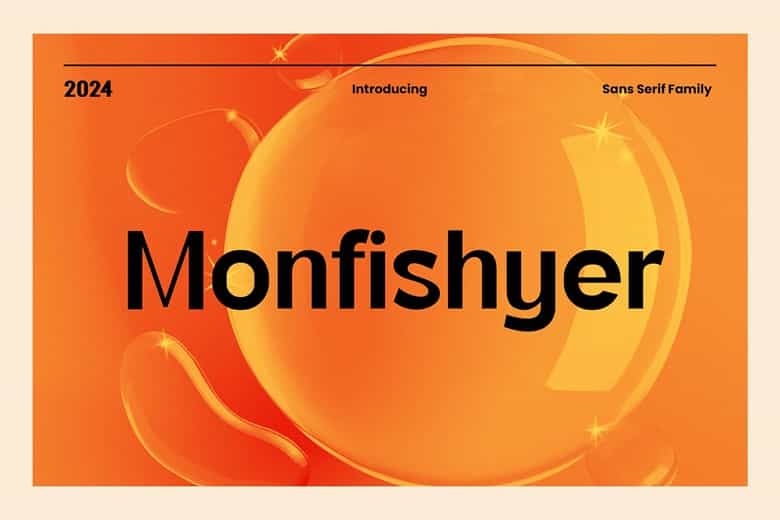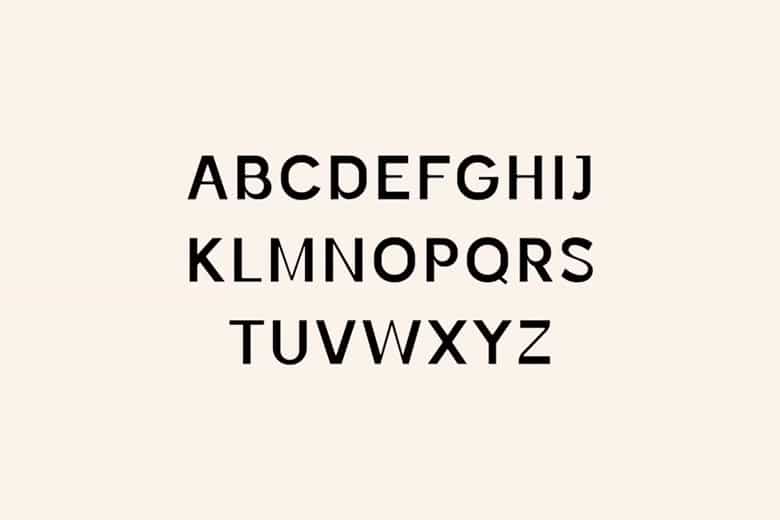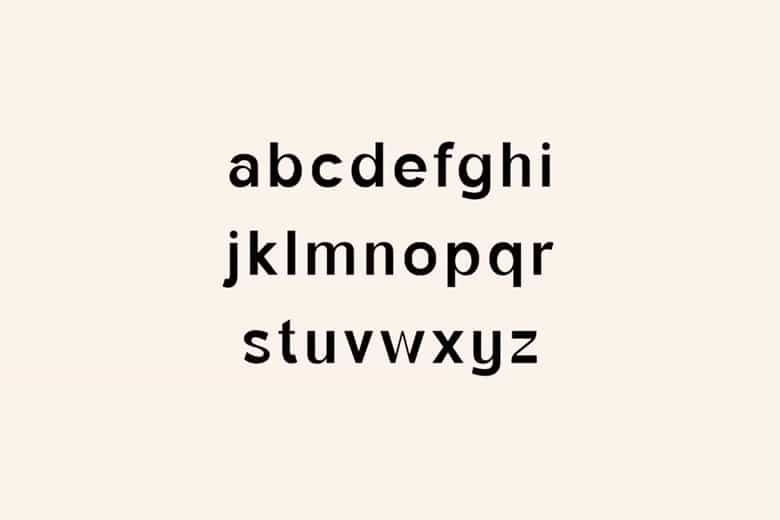
Monfishyer is a modern sans serif type family that has a unique and simple touch of elegance. This font is perfect for any kind of projects including signature, stationery, logo, wedding, typography quotes, magazine or book covers, website headers, branding and many more.